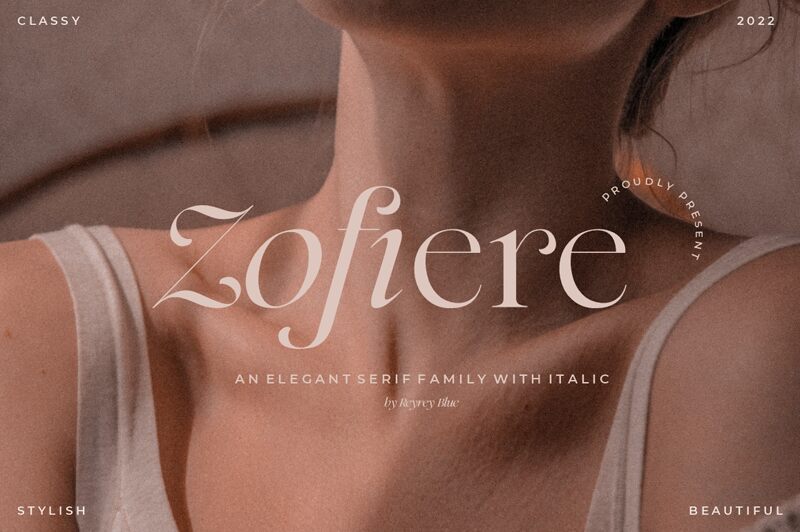
Zofiere Italic, a creation by ReyreyBlue, is a true embodiment of elegance with its serif style that adds a touch of sophistication. The font's flowing, italicized characters suggest refinement and grace, making it perfectly suited for works that require an air of finesse. Its distinct letterforms exude a sense of classical charm while providing modern flair.
The application of Zofiere Italic spans from the literary to the luxurious; it's ideal for invitations to exclusive events, headings in boutique branding materials, and editorial use where a touch of class is paramount. This font not only enhances the visual aesthetics but also enriches the textual narrative with its timeless allure.